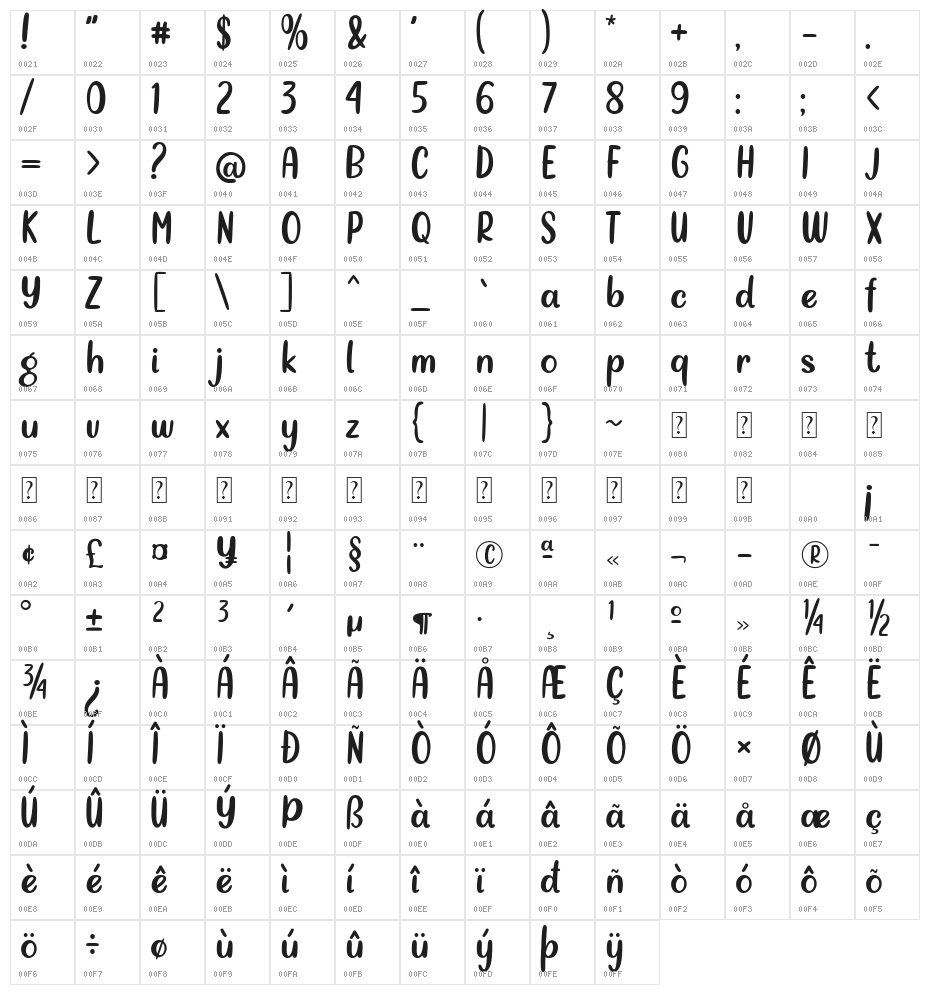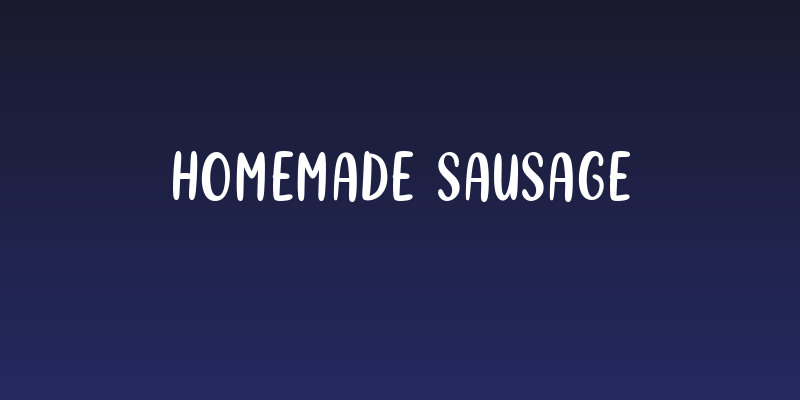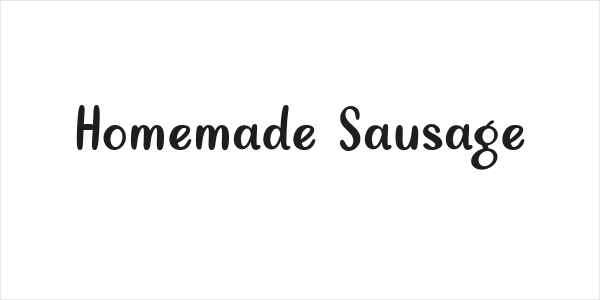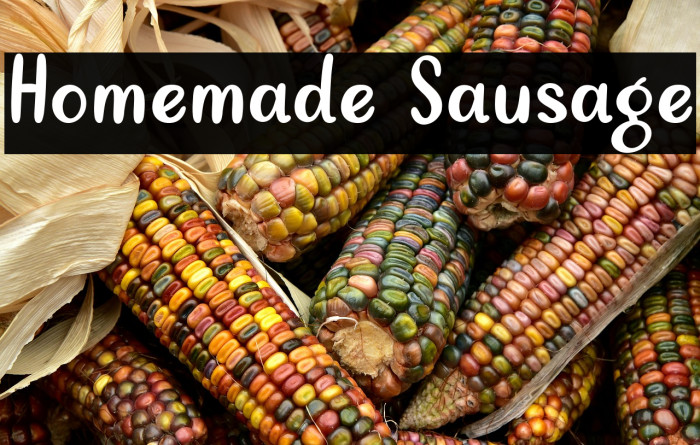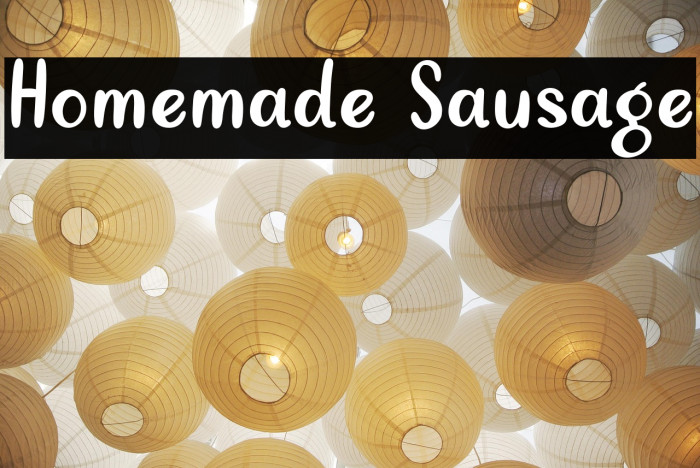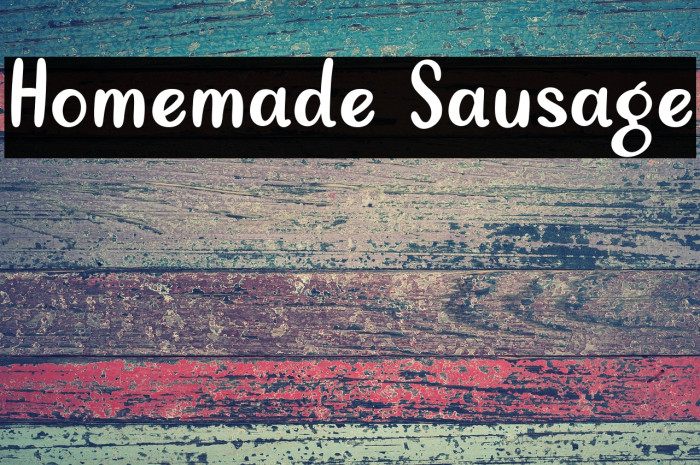
Homemade Sausage Font
Homemade Sausage Description
This font features a playful and rounded style, characterized by its bold and smooth curves. The letters are evenly spaced with a consistent stroke width, giving it a friendly and approachable appearance. The uppercase and lowercase letters maintain a uniform height, enhancing readability. The numbers and special characters are designed with the same playful aesthetic, making them stand out while remaining cohesive with the overall style. This font is ideal for projects that require a touch of whimsy and creativity, such as children's books, playful branding, or casual invitations.
| Proposed Projects | Children's books, playful branding, casual invitations, posters, and social media graphics. |